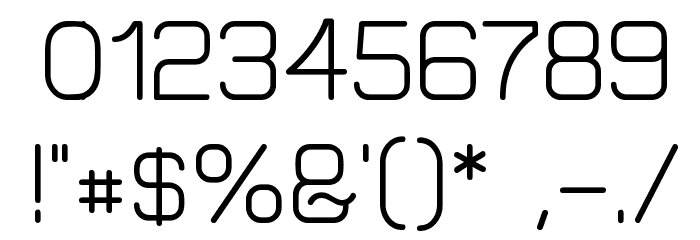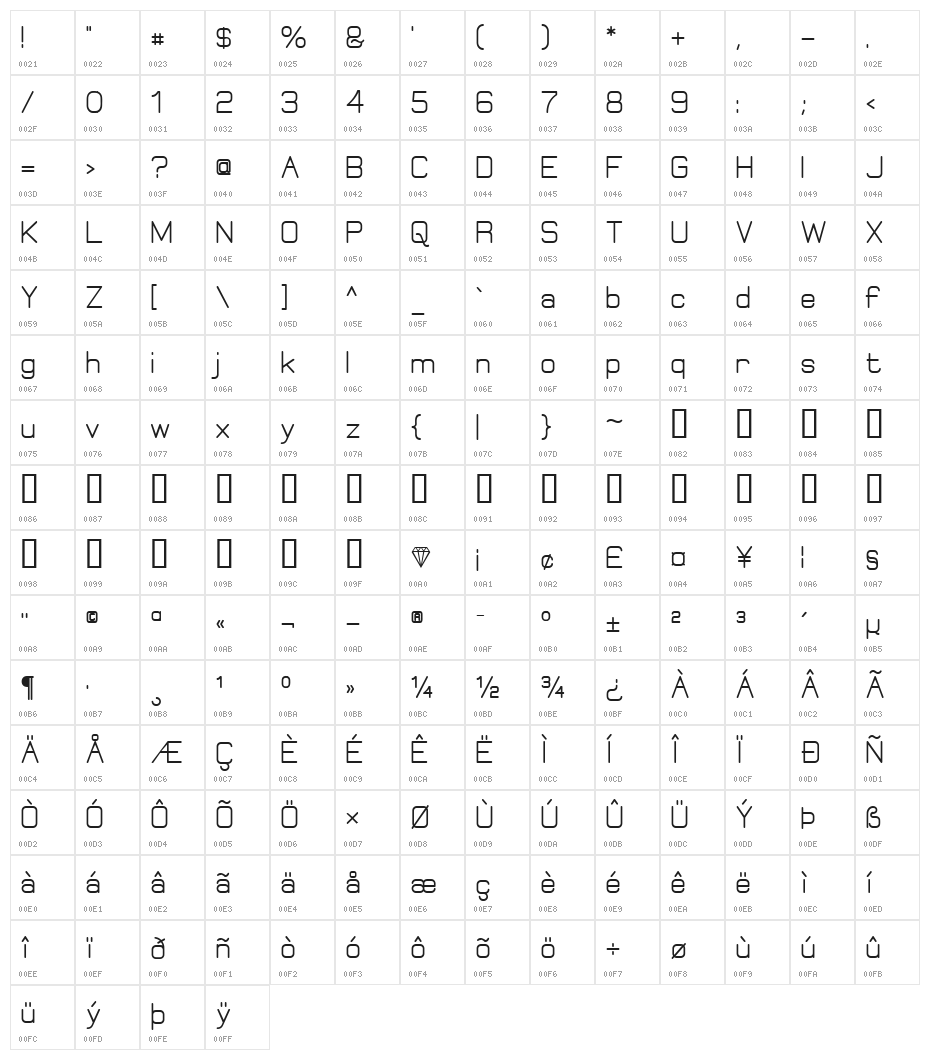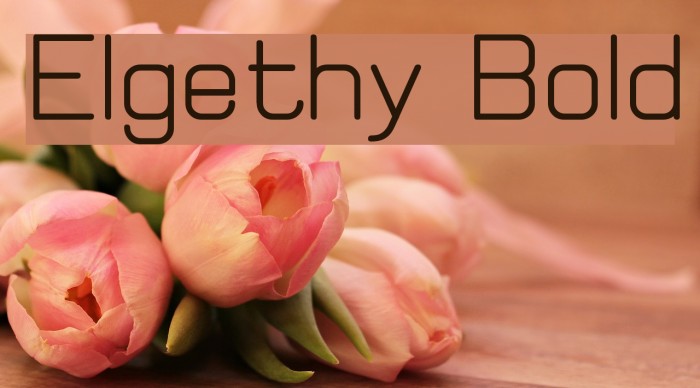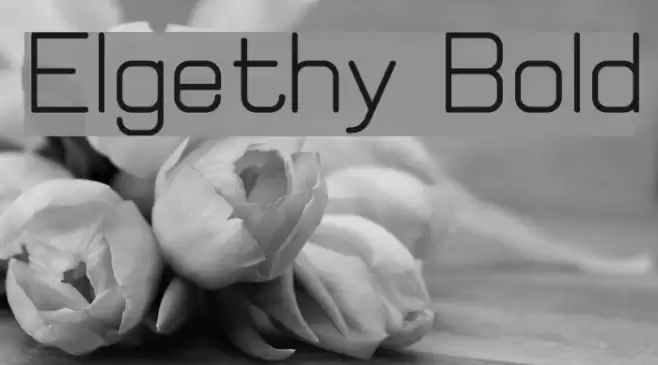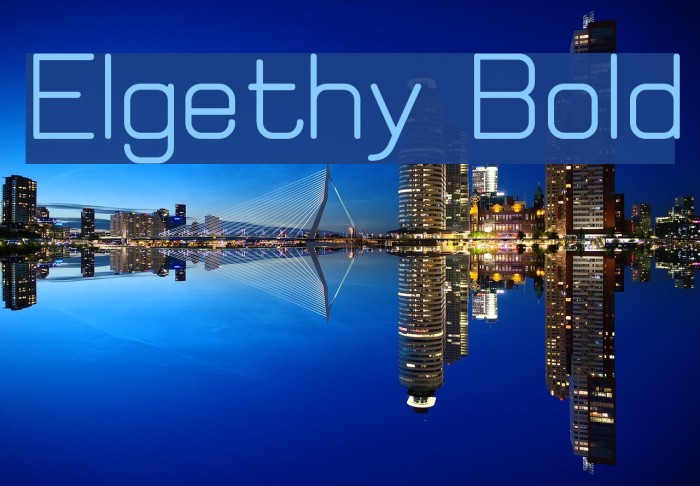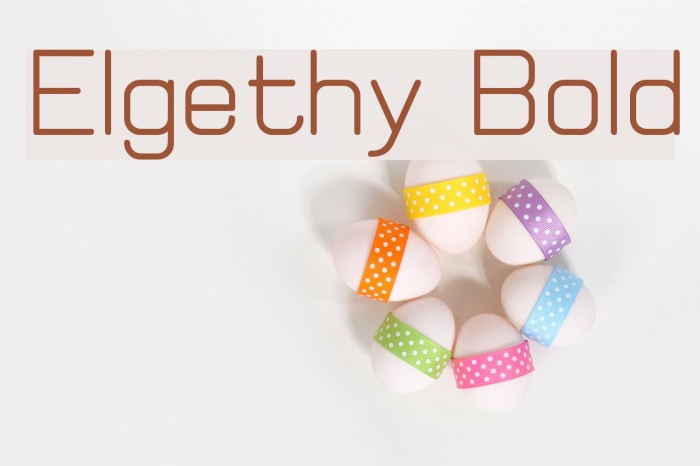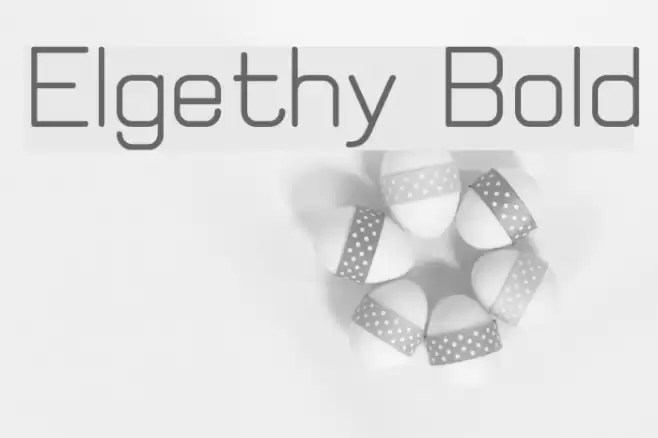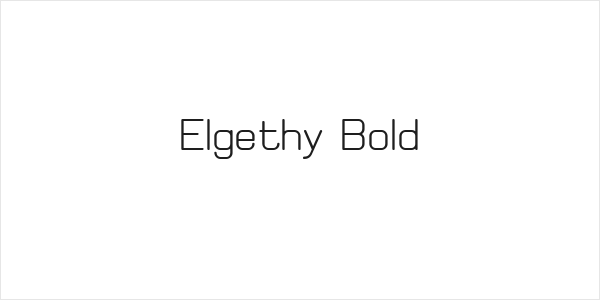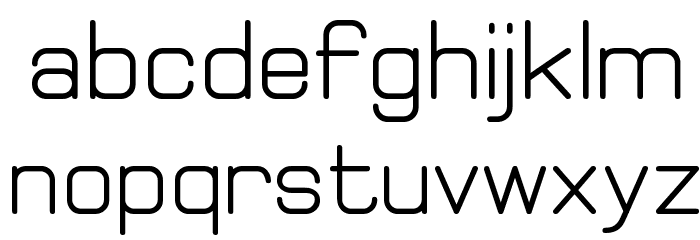
Elgethy Bold Font
Elgethy Bold Description
This font features a modern, geometric sans-serif style with clean lines and a uniform stroke width. The characters are well-balanced, with a slightly rounded appearance that adds a touch of softness to the overall design. The uppercase and lowercase letters maintain a consistent height, contributing to a harmonious look. The numerals are clear and legible, making them suitable for various applications. Special characters are designed with the same attention to detail, ensuring they blend seamlessly with the rest of the typeface. This font's simplicity and clarity make it versatile for both digital and print media.